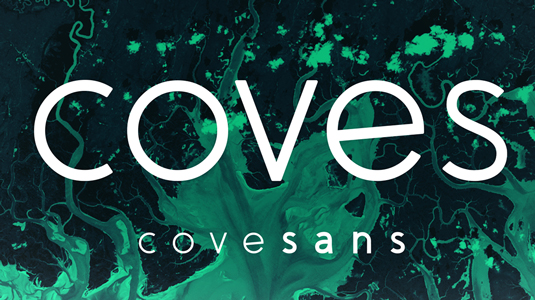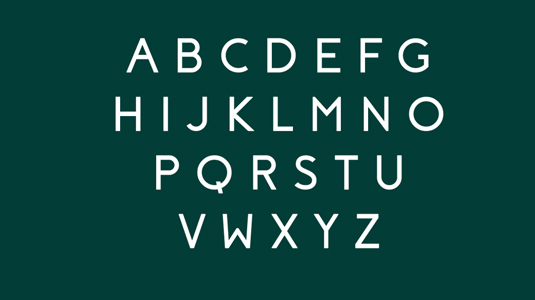
Font of the day: Coves
Coves by Jack Harvatt
With simple round edges, today's typeface of choice Coves is great for titles and logo designs. Created by designer and illustrator Jack Harvatt, Coves was inspired by his place of study, Falmouth, UK.